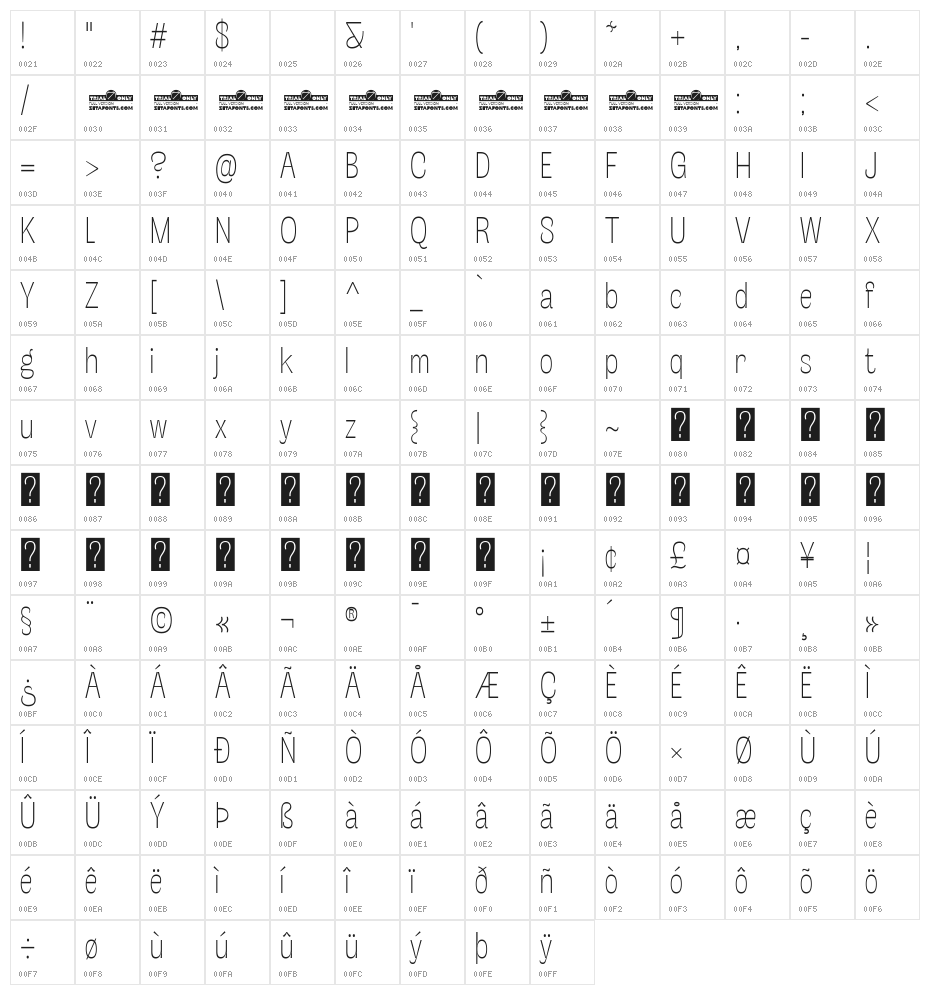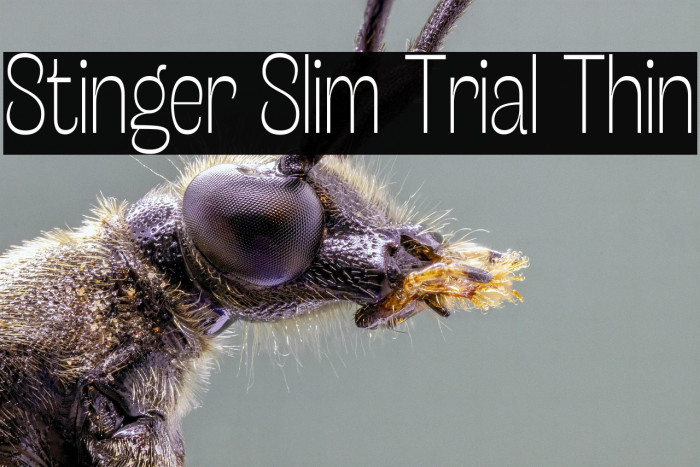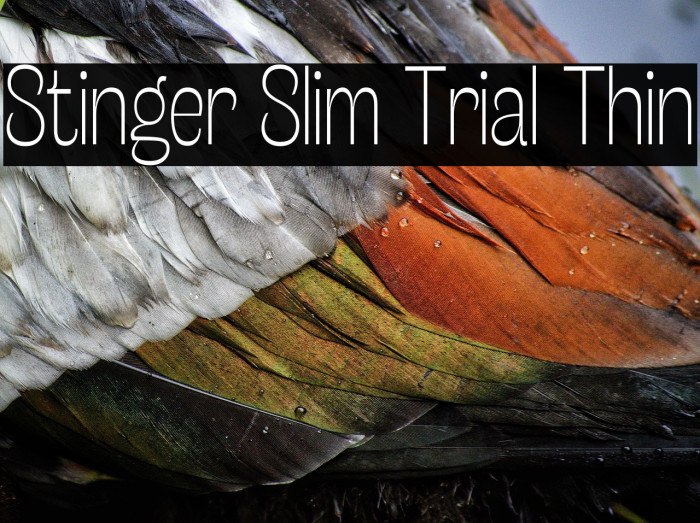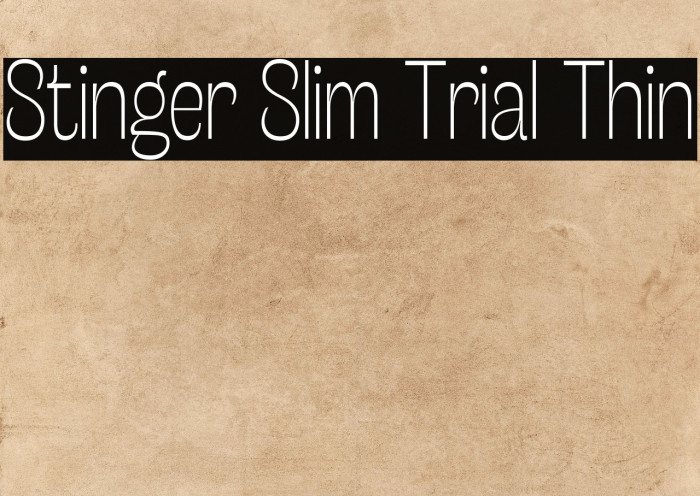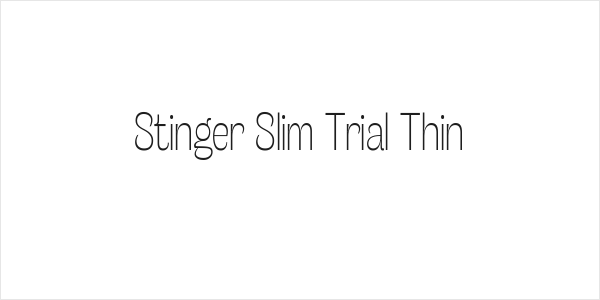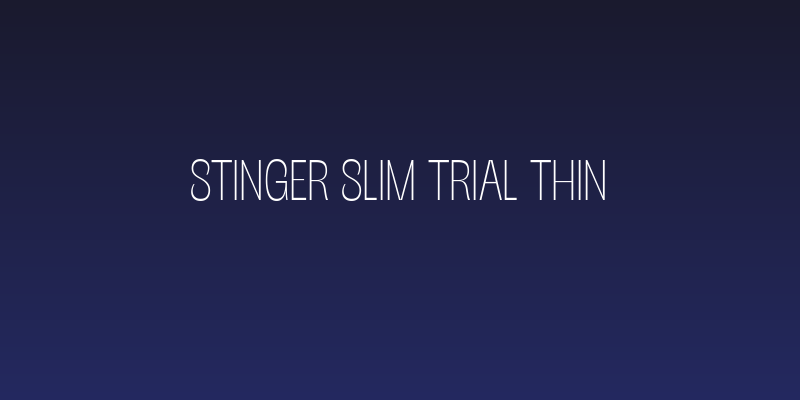
Stinger Slim Trial Thin Font
Stinger Slim Trial Thin Description
This font exhibits a sleek and modern design with thin, elongated strokes that convey a sense of elegance and sophistication. The characters are tall and narrow, giving a streamlined appearance that is both contemporary and stylish. The uppercase and lowercase letters maintain a consistent height, creating a harmonious look. The numerals and special characters are designed with the same thin lines, ensuring uniformity across all elements. This font is ideal for projects that require a clean and minimalist aesthetic, such as fashion branding, luxury product packaging, or high-end editorial design.
| Use Case | Logos, Headlines |
| Proposed Projects | Ideal for fashion branding, luxury product packaging, and high-end editorial design. |